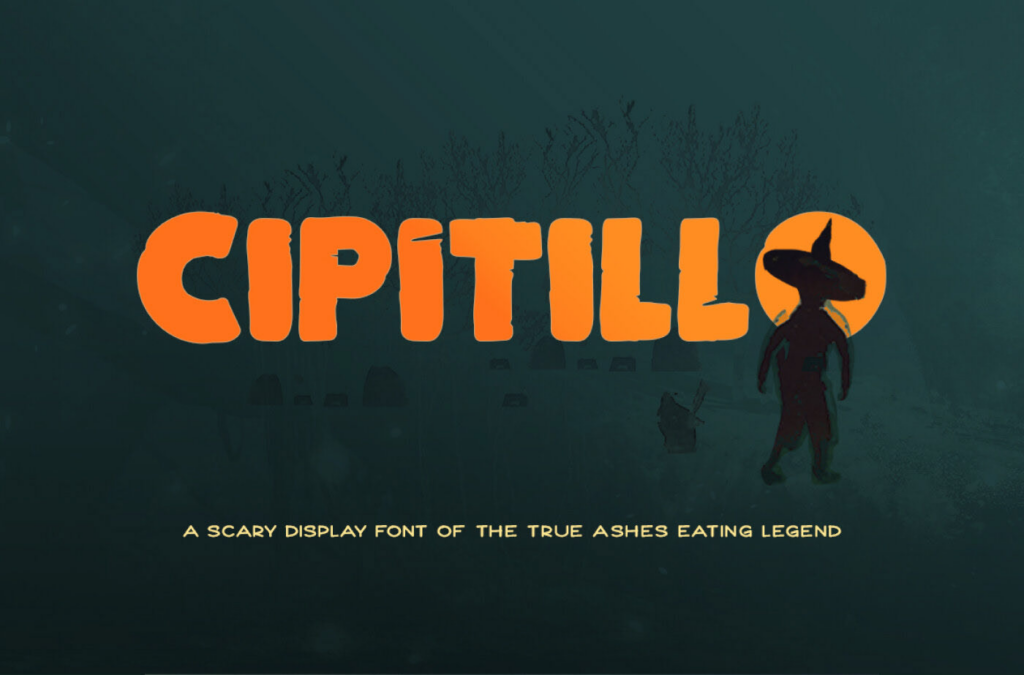
Cipitillo is a spooky display font from Don Marciano. It is inspired by Salvadoran folklore, the legendary character “El Cipitío”. This bold distressed font is perfect for Halloween invitations, spooky movie posters and frightening apparel.